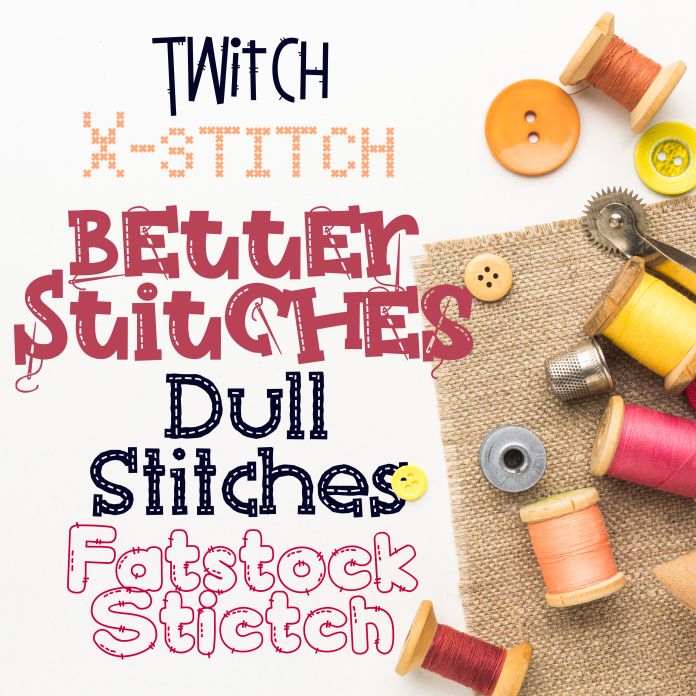
These five, hand-written, hand-crafted fonts have one thing in common: stitches! Hand-crafted fonts can be either formal or informal, and they can be used for a variety of purposes. Some of the characteristics of handwritten fonts include: The letters are not perfectly uniform in size or shape. There may be slight variations in the spacing between letters and words. The font may have a "wiggly" or "squiggly" appearance. The font may be difficult to read at small sizes. Handwritten fonts can be a great way to add a casual touch to your designs. They can also be used to create a sense of nostalgia or whimsy. However, it is important to choose a handwritten font that is appropriate for the project you are working on. A formal handwritten font may not be appropriate for a casual invitation, while an informal handwritten font may not be appropriate for a corporate document.